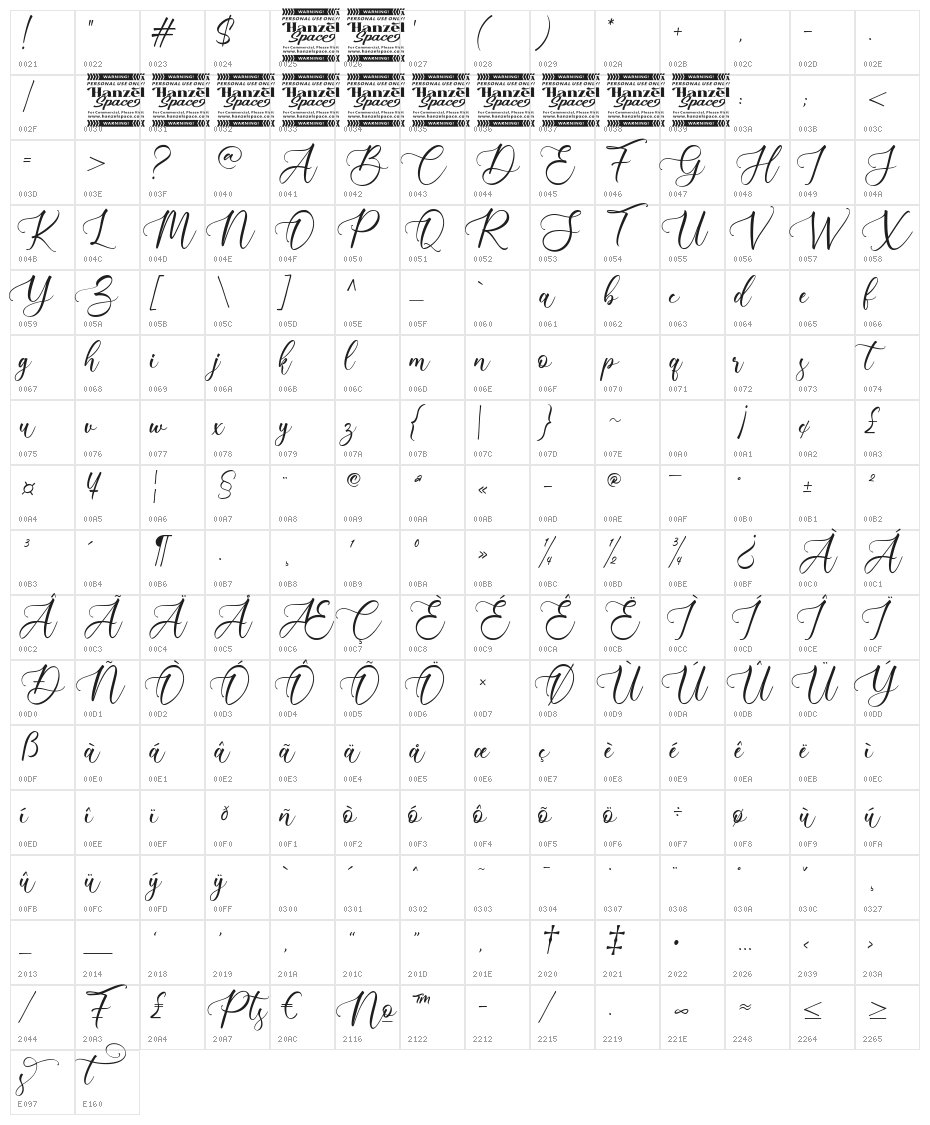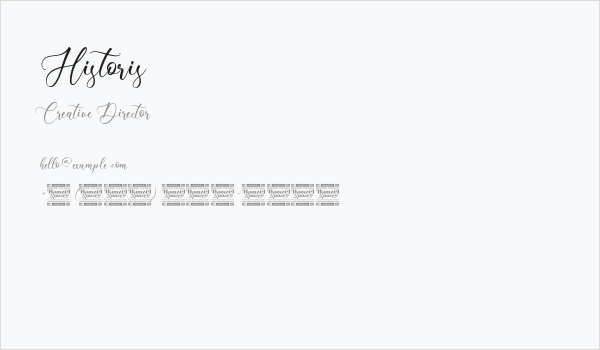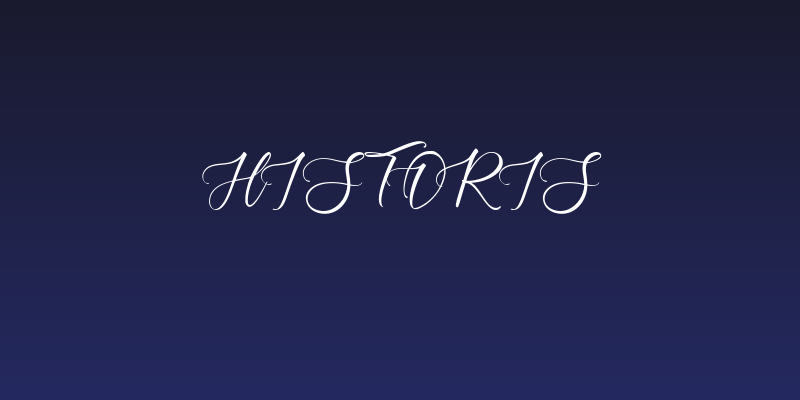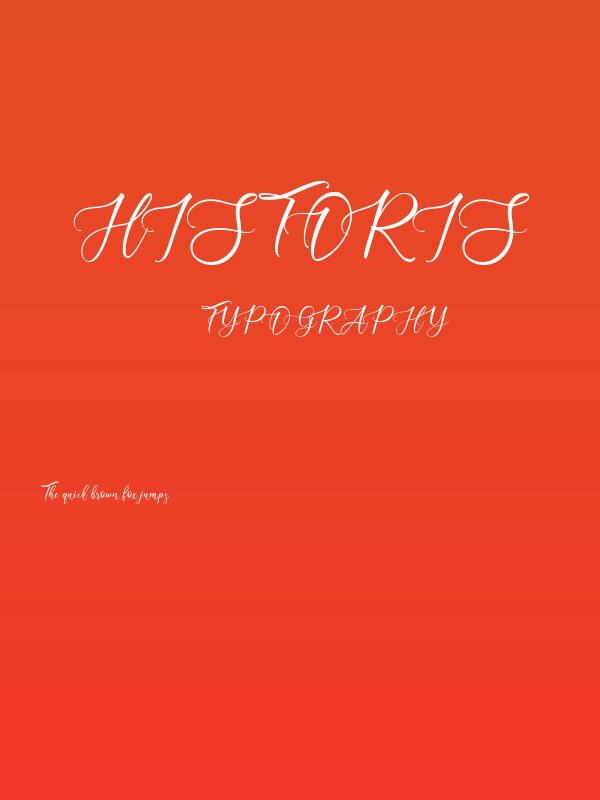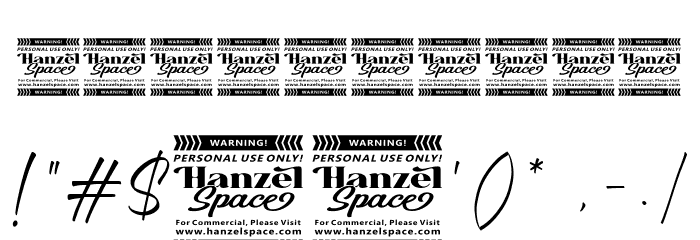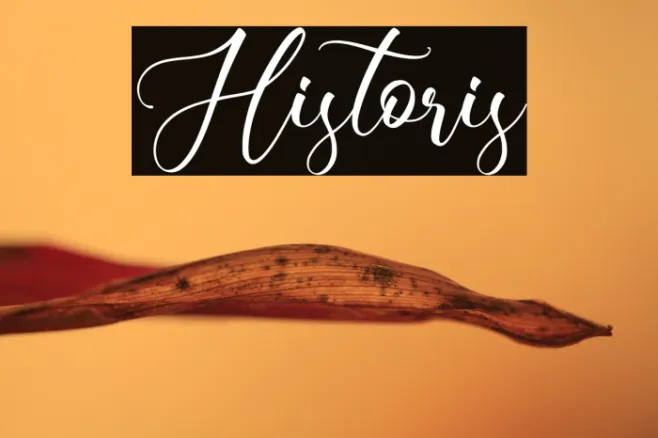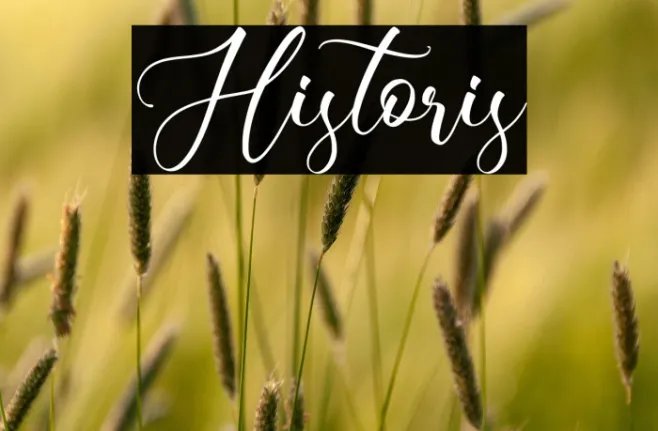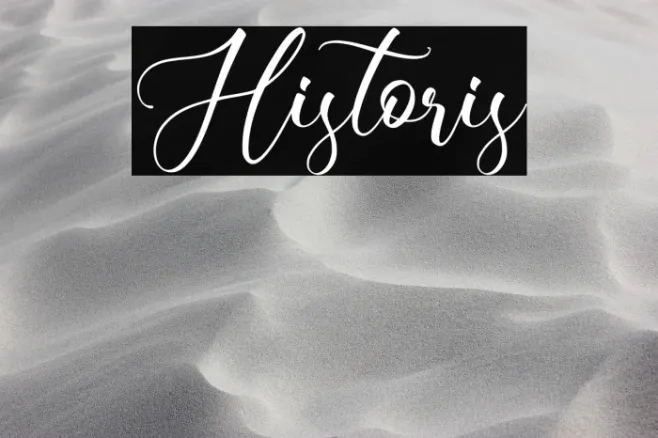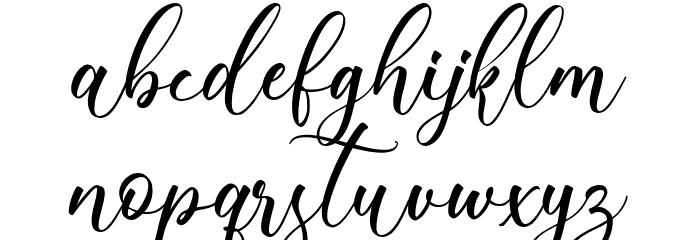
Historis Font
Historis Description
This font features an elegant and flowing script style, characterized by its intricate and graceful letterforms. The uppercase letters are particularly ornate, with sweeping curves and delicate flourishes that give a sense of sophistication and artistry. The lowercase letters maintain a consistent style, with smooth connections and a harmonious flow that enhances readability. The font includes a full set of numerals and a variety of special characters, making it versatile for different design needs. Its overall appearance is both classic and decorative, suitable for projects that require a touch of elegance and refinement.